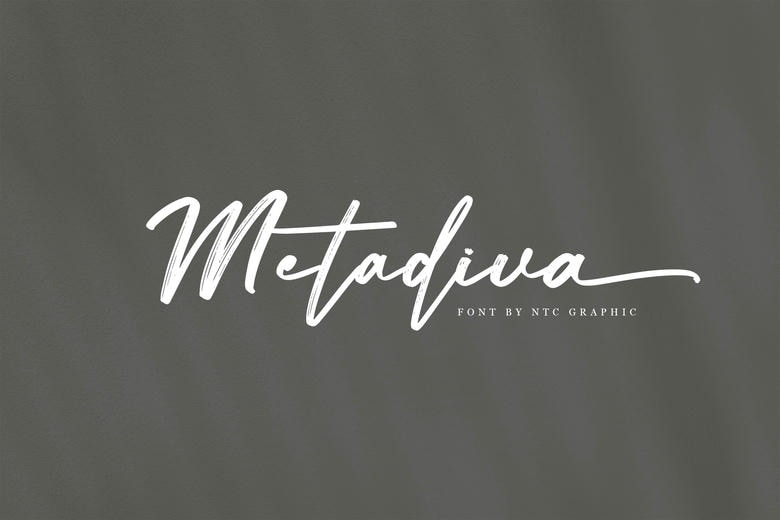
Metadiva Font
Metadiva is narrowly handwritten font based on a script font with a hand brush effect kind style. As a result of its exceptionally designed characters, it is ideal for giving that special aesthetics to your artwork such as branding, packaging, invitations, etc. Metadiva is characterized with brush strokes that infuse any design with energy as well as the handcrafted quality.
Metadiva Handwritten Brush Font